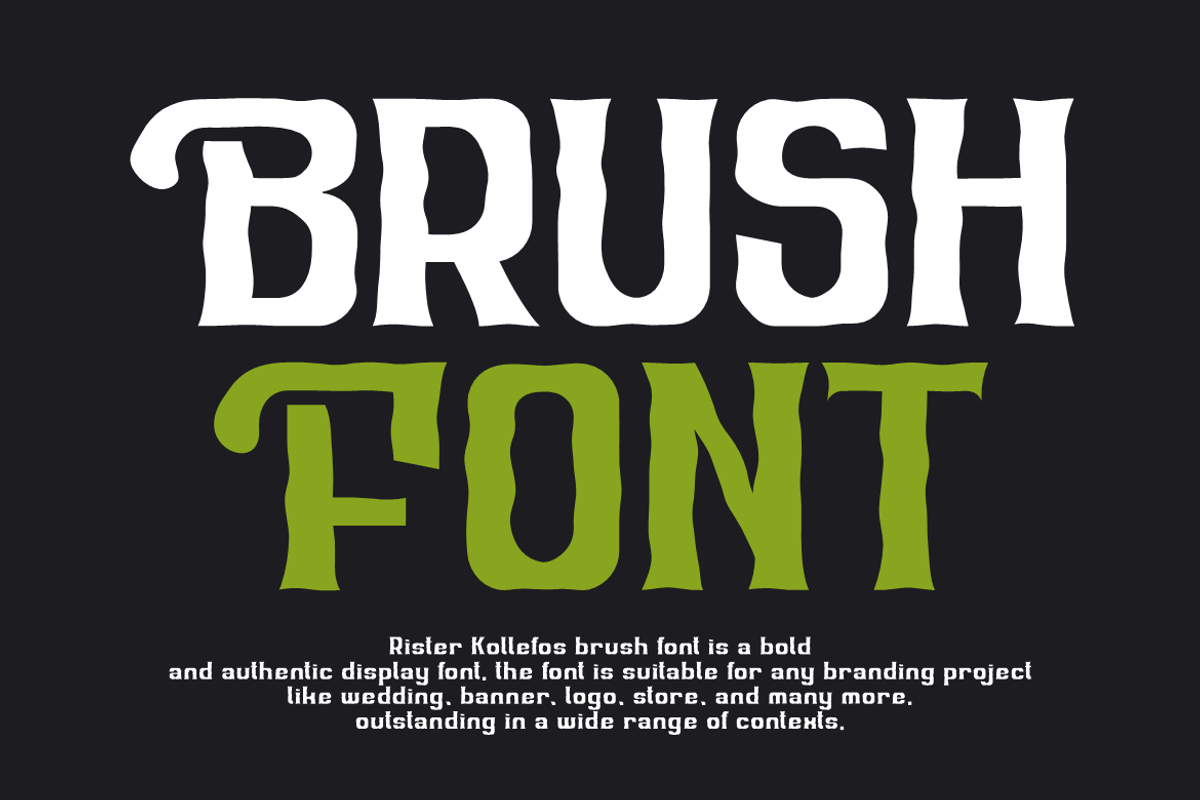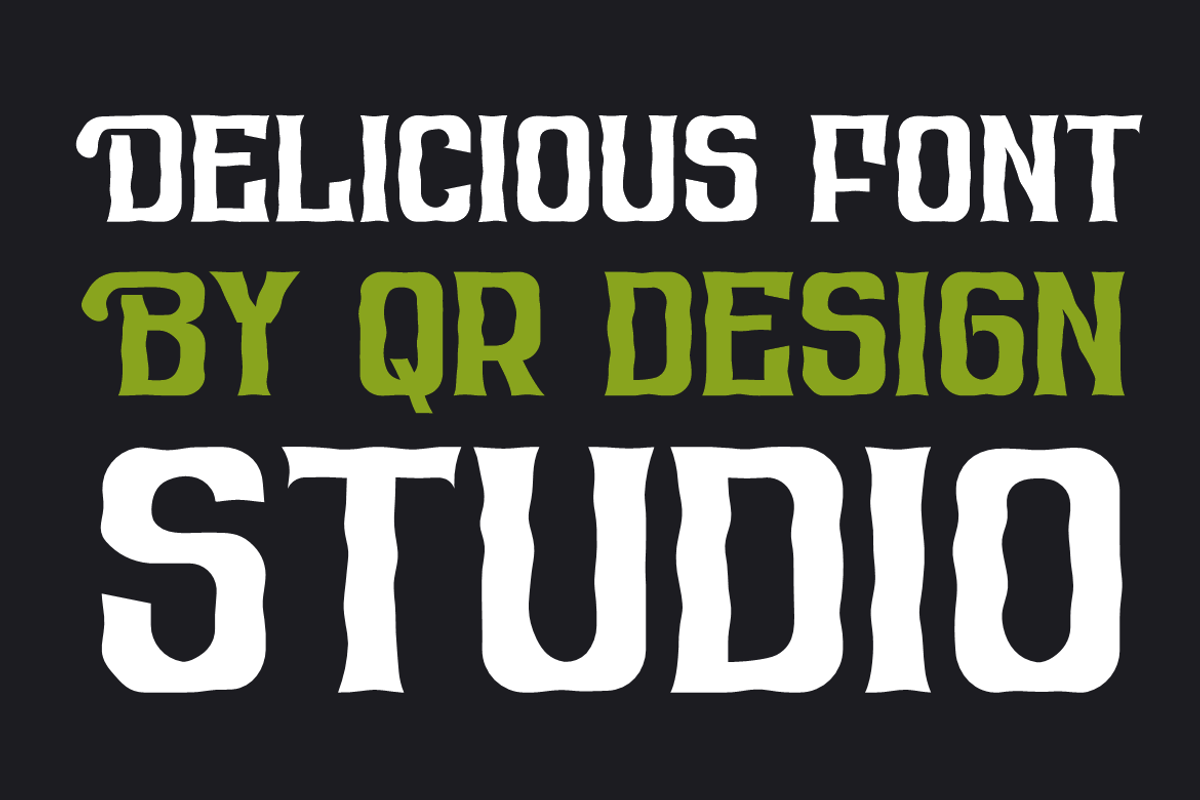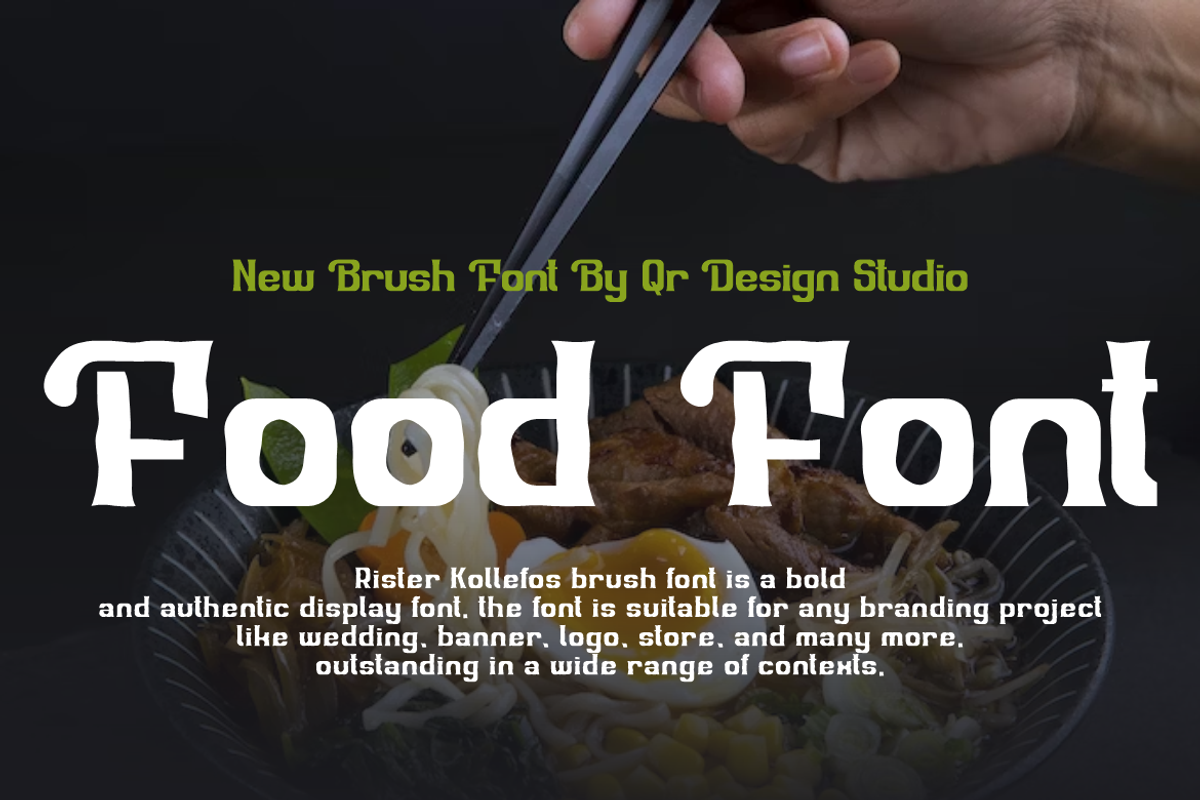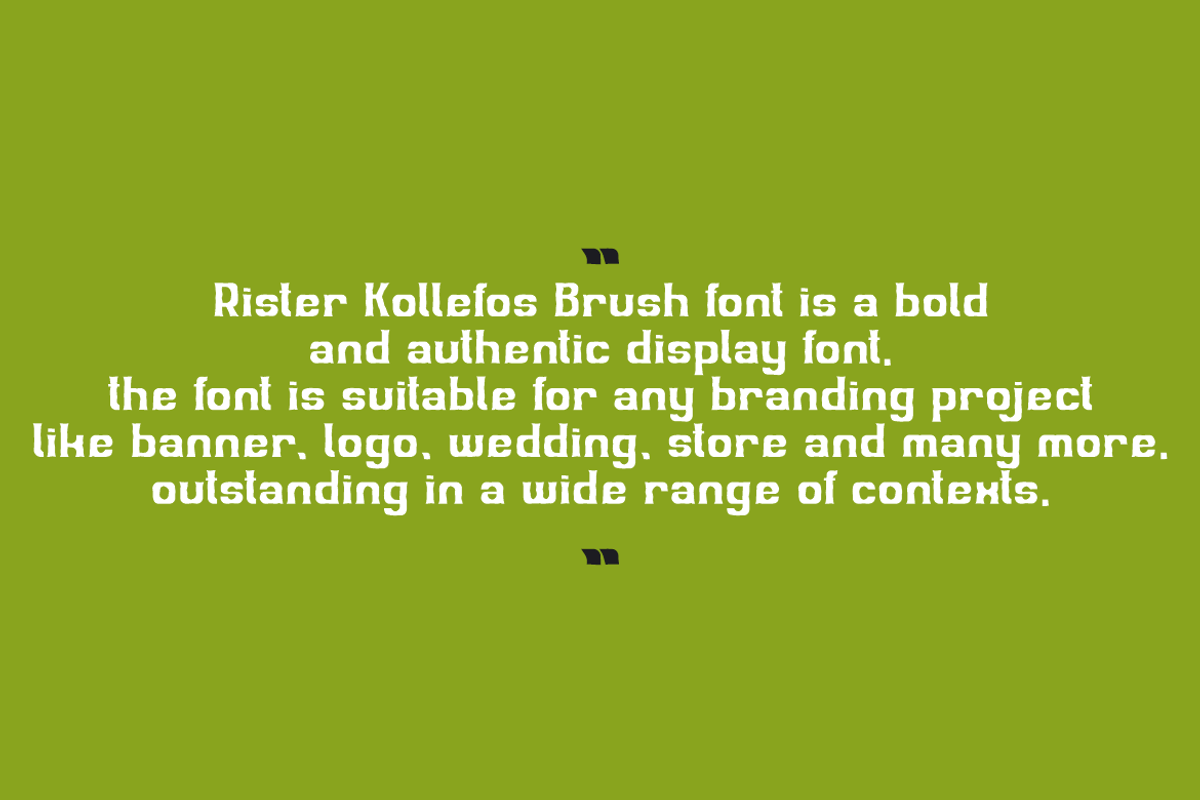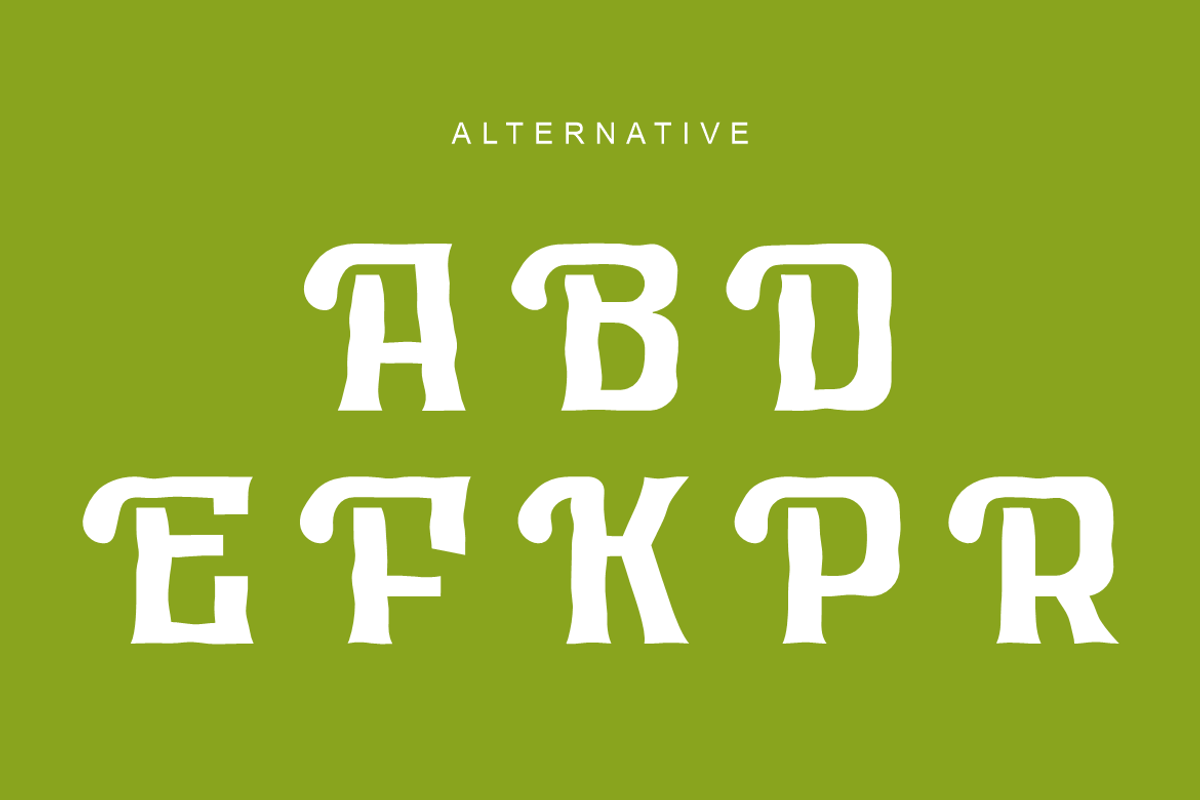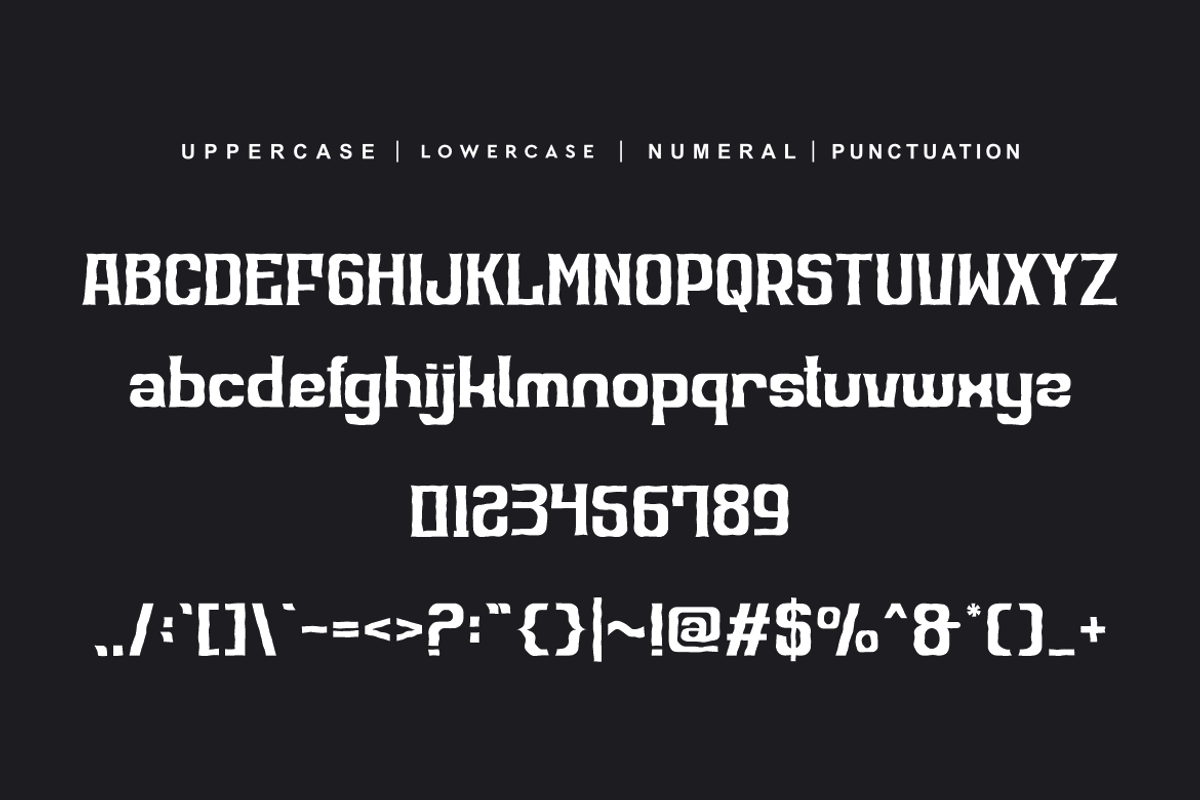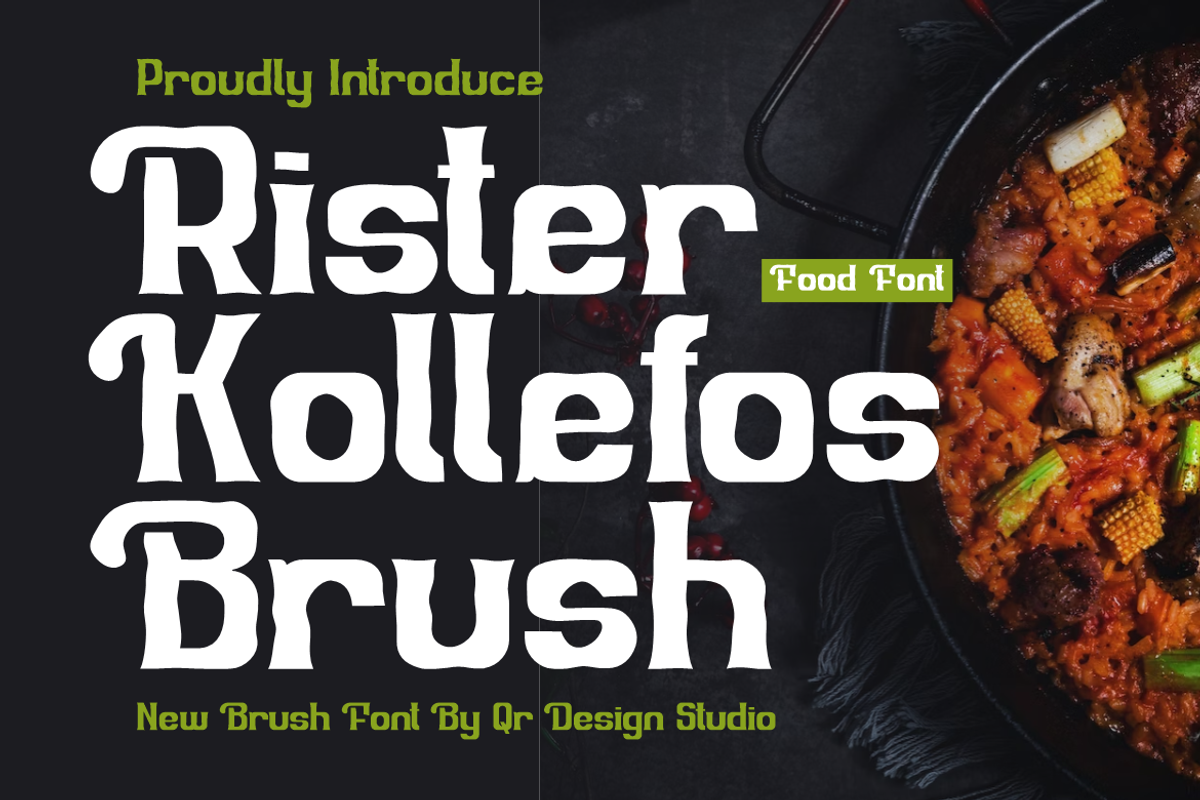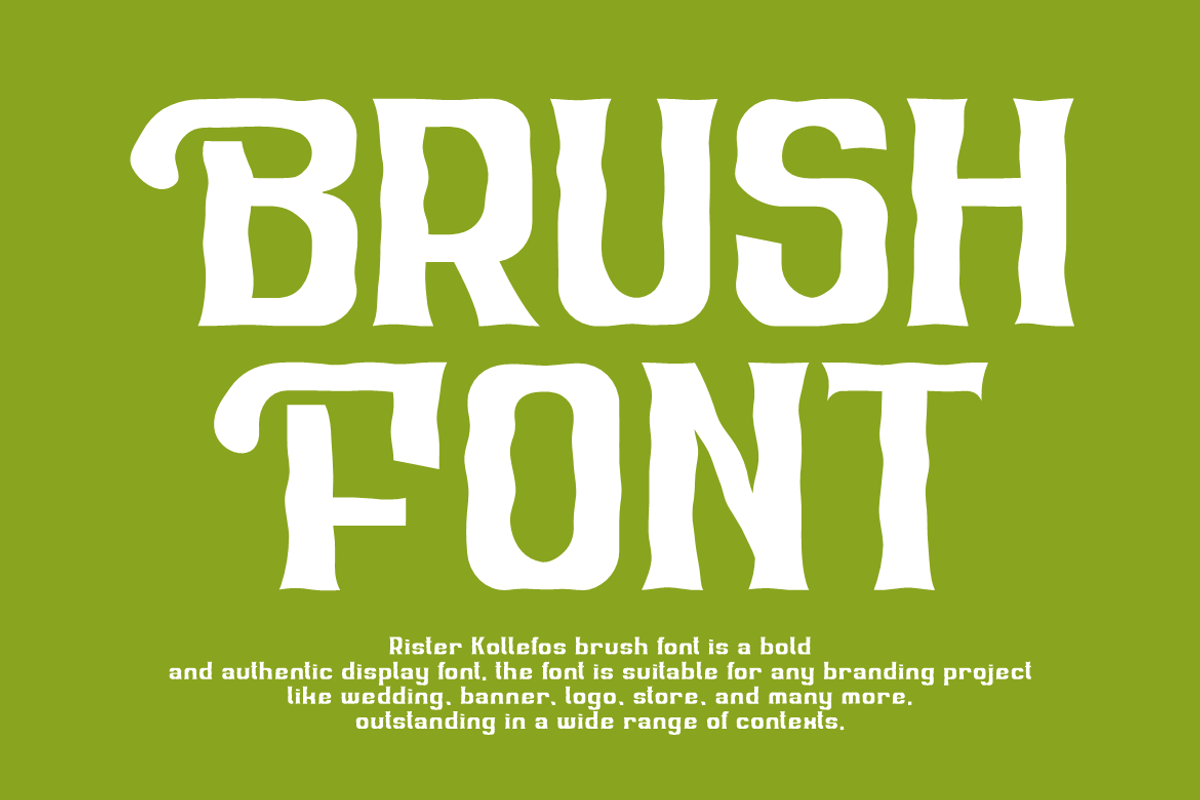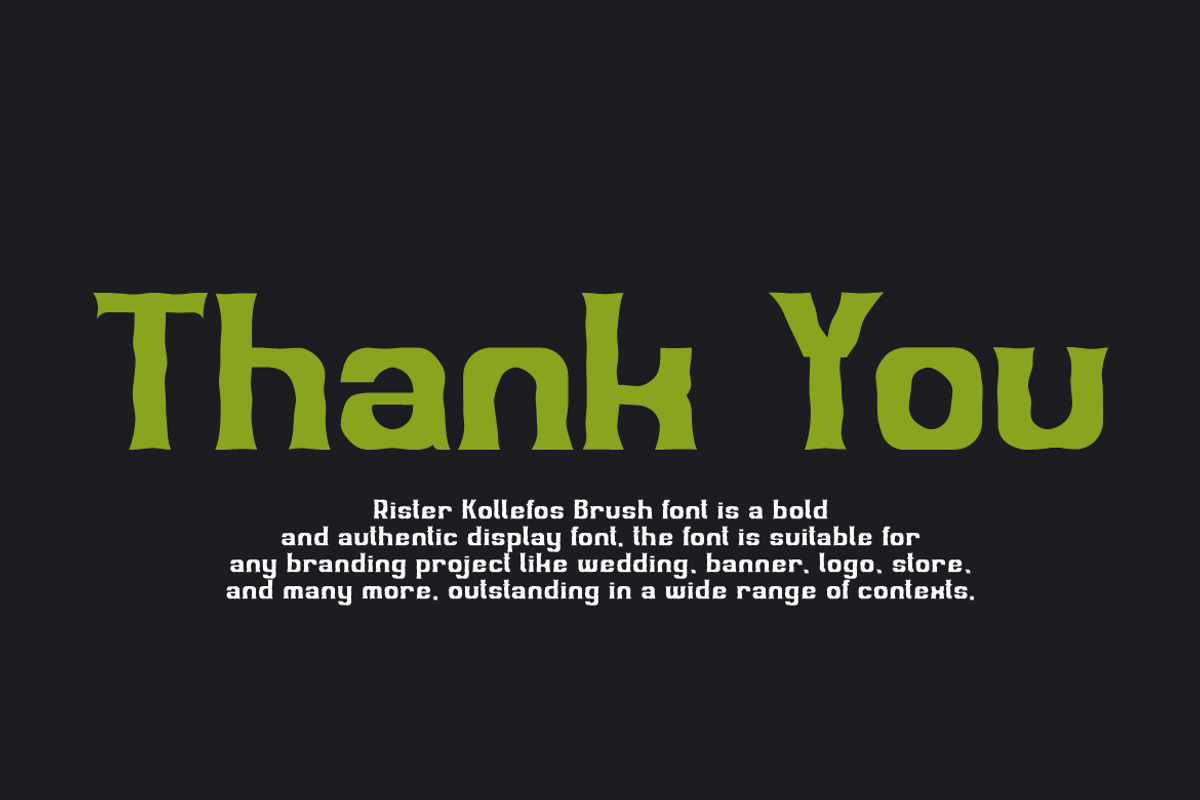
Rister Kollefos Brush
Rister Kollefos Brush Font is a bold and authentic display font. The font is suitable for any branding project like logo, food, and many more. Outstanding in a wide range of contexts.